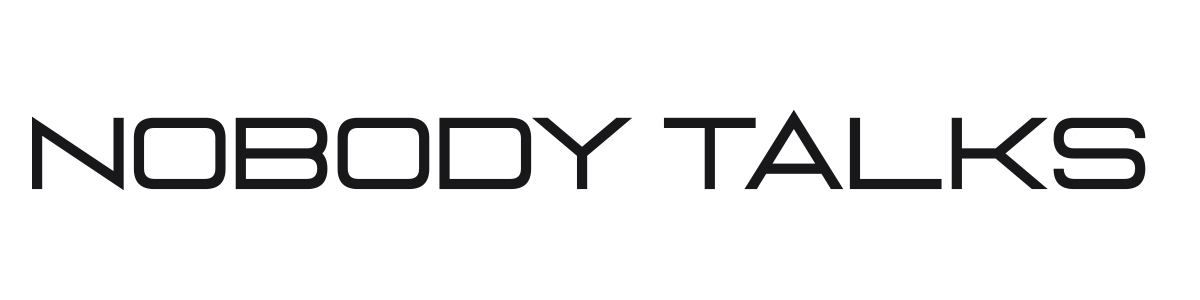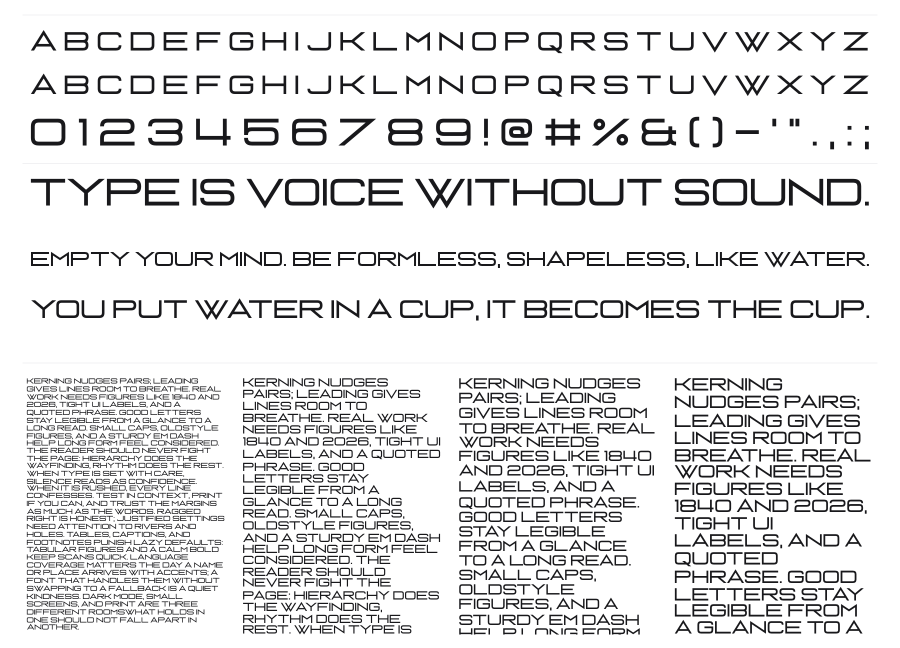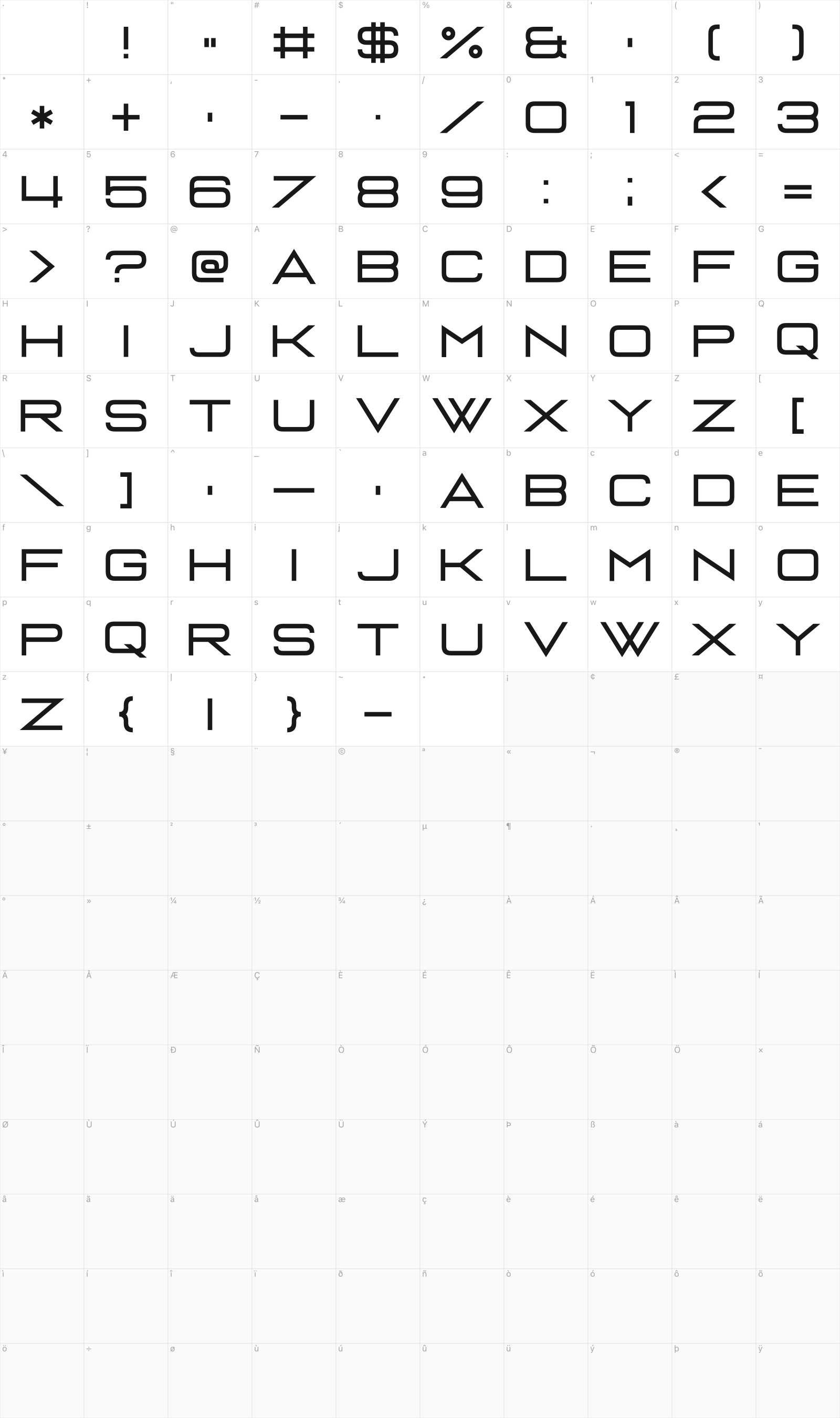
Nobody Talks
Nobody Talks is a light geometric sans-serif with wide proportions and precisely flat terminals. Its squared stroke junctions and near-monoweight construction give it a cold, architectural quality that works well in tech branding, editorial headlines, and modern identity work. The generous spacing and open forms keep it legible even at smaller display sizes.